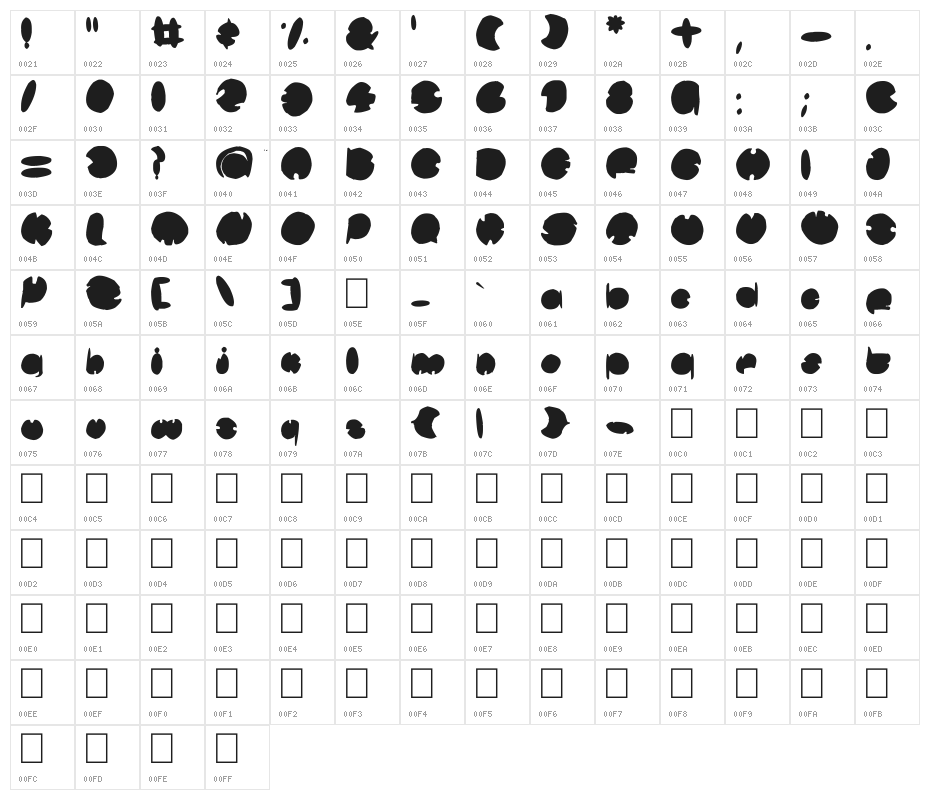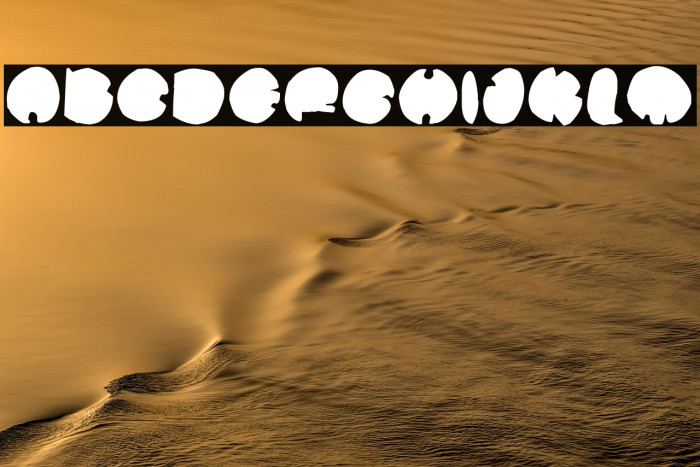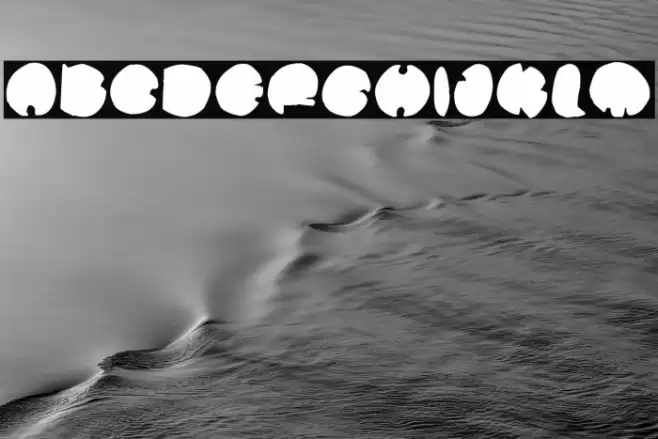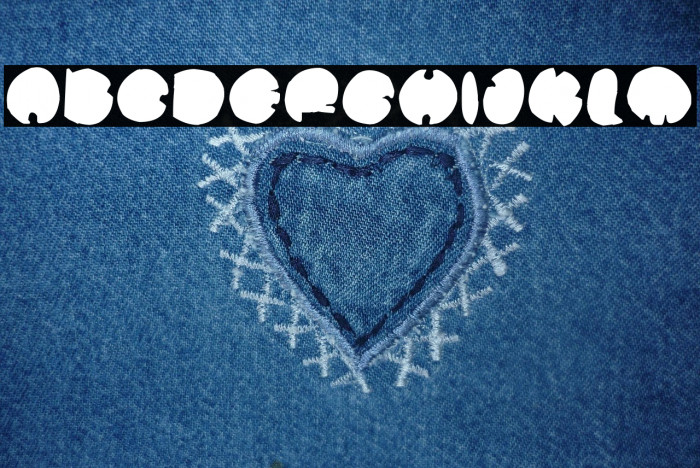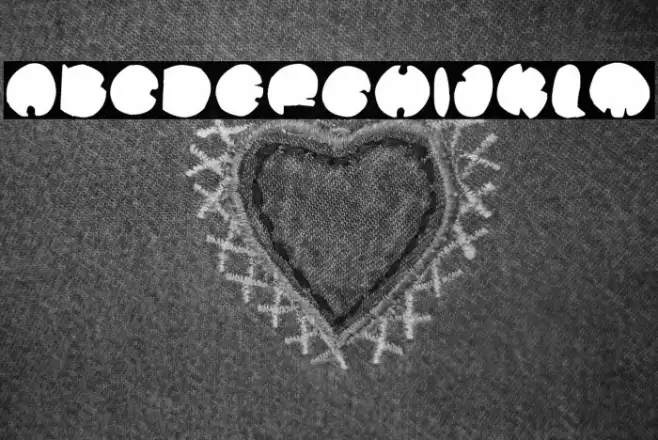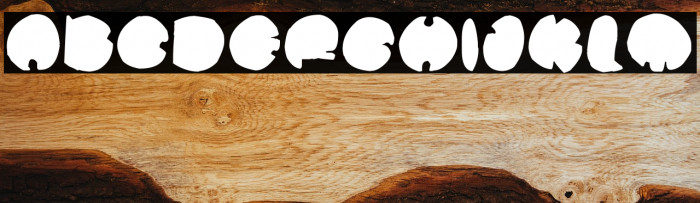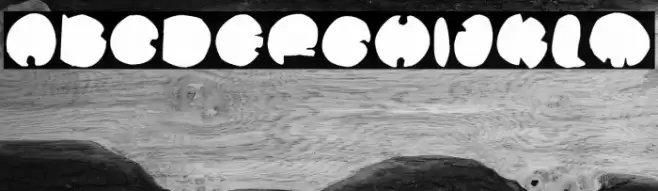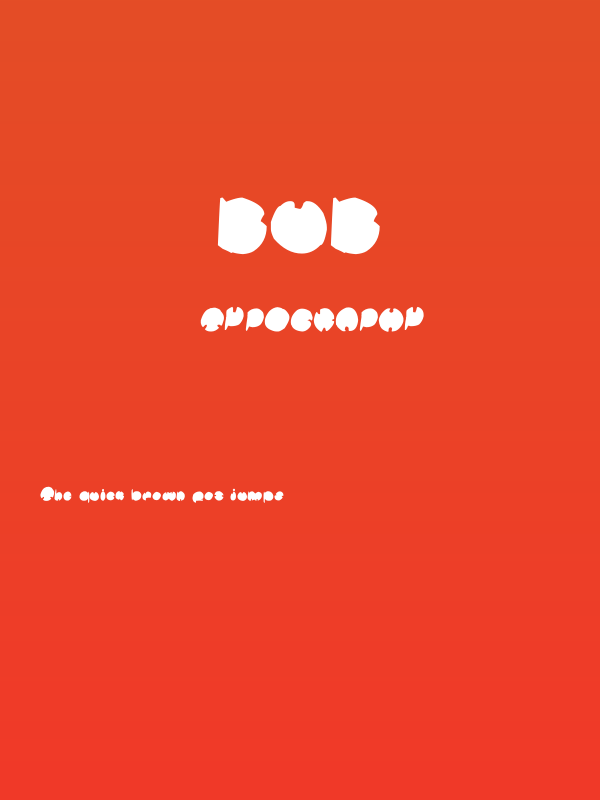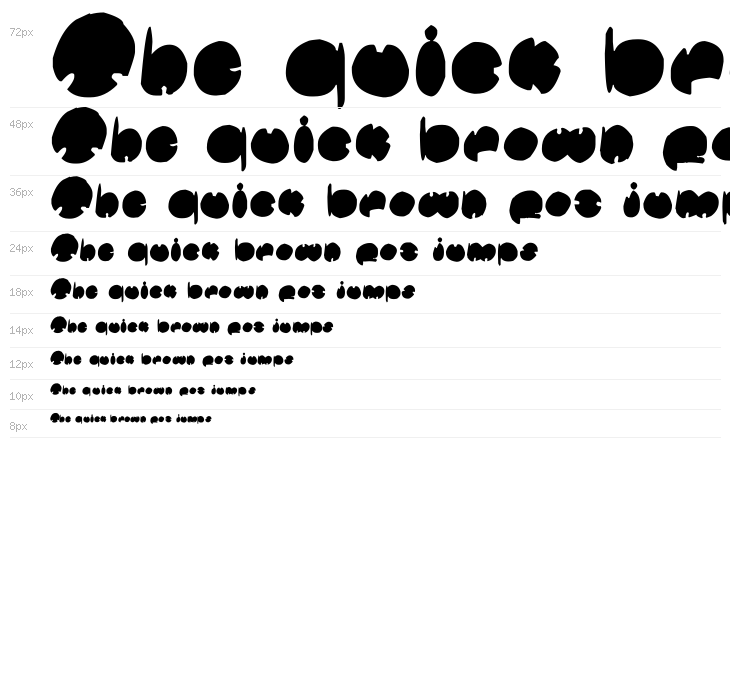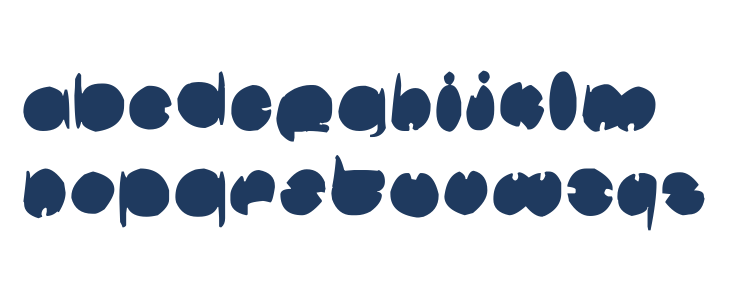
BUB Font
BUB Description
This font features a bold, playful design with rounded, bubble-like characters. The letters are thick and have a whimsical, almost cartoonish appearance, making them stand out with a strong visual impact. The characters are uniformly bold, with a consistent thickness throughout, giving the font a cohesive look. The rounded edges and smooth curves contribute to its friendly and approachable style. This font is particularly suitable for creative and informal projects, where a fun and engaging typeface is desired. The numbers and special characters maintain the same bubbly aesthetic, ensuring a harmonious overall appearance.
Overall StylePlayful, Whimsical
Proposed ProjectsIdeal for children's books, playful branding, posters, and creative designs.